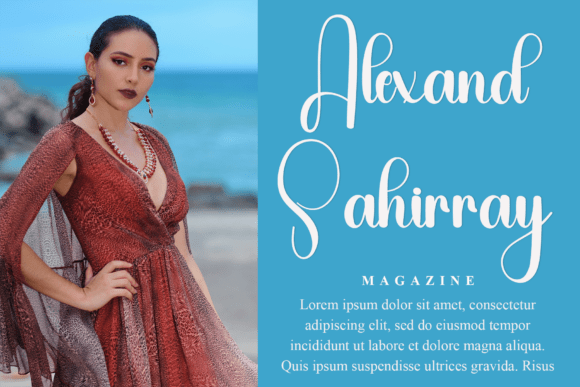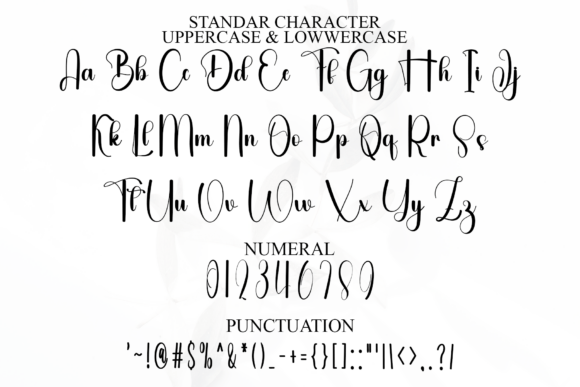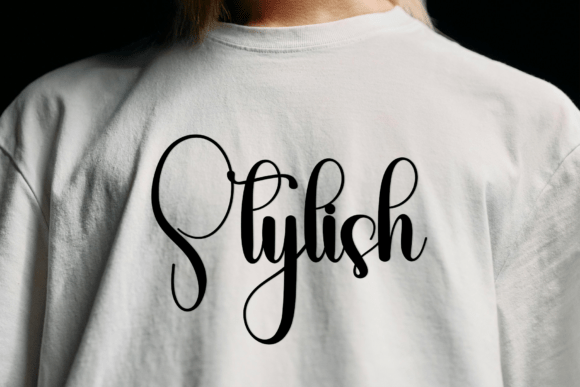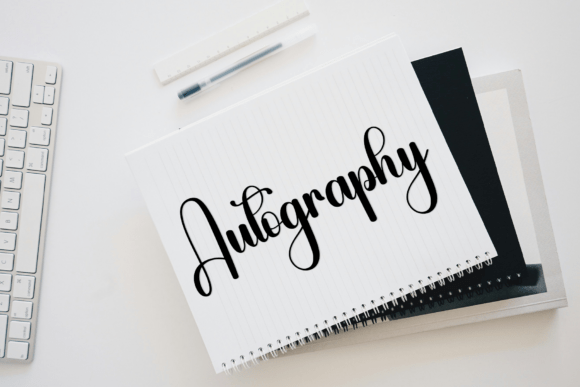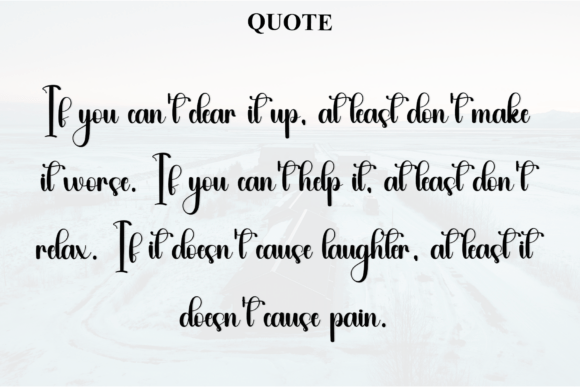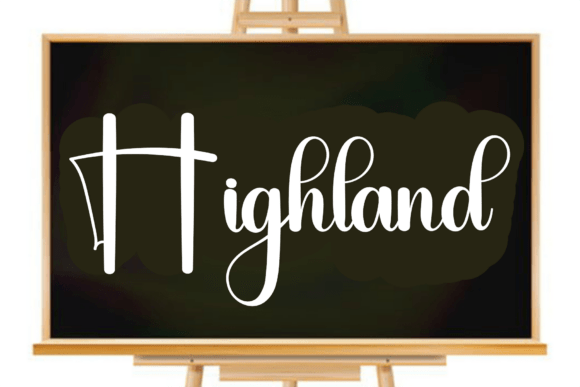
Introduction to Simple Paradise Font
As a designer, have you ever found yourself scrolling through a beautiful beach-themed website, captivated by the laid-back atmosphere and the effortless way the text flows across the screen? That’s exactly what happens when you use the Simple Paradise Font, a modern handmade typeface that embodies the essence of a coastal getaway.
With its tall, slender letterforms and organic, fluid curves, this font is more than just a design choice – it’s an experience. It’s a chance to transport your audience to a place of relaxation and tranquility, where the worries of everyday life melt away with the tide. Whether you’re working on a creative project or simply looking for a high-quality design resource, the Simple Paradise Font is an excellent choice.
Key Features of Simple Paradise Font
- High-quality design resource ideal for creative projects and personal use.
- Simple yet elegant font style suitable for various applications, including headings, titles, and body text.
- Features a transparent background, making it easy to use on any background image or color.
- Includes a range of font sizes, from 12pt to 72pt, to suit various design requirements.
- Designed with a resolution of 300 DPI for crisp and clear text display.
- Perfect for designers, writers, and artists seeking a simple yet effective font for their creative project.
Honest Review: Simple Paradise Font
I recently had the chance to work with the Simple Paradise Font for a creative project, and I must say, it’s been a great addition to my design resource library. The font is free to download, which is a huge plus, especially for those on a tight budget.
What works well with this font is its high quality and versatility. It’s perfect for any project that requires a touch of elegance and sophistication. The font is also available with a transparent background, making it easy to integrate with any design element.
The font’s simplicity is both its strength and weakness. Here are some pros and cons:
- ✨ Versatile and can be used in a variety of contexts
- ⚠️ Limited character set, which may not be suitable for projects that require a wide range of characters
- ⚠️ May not be suitable for projects that require a bold or playful font style
Overall, I’m impressed with the Simple Paradise Font. It’s a great design resource that can add a touch of elegance to any project. However, it’s essential to keep in mind its limitations and use it accordingly.
The Simple Paradise Font is a high-quality design resource ideal for various creative projects. This versatile font offers a unique aesthetic and is available for free download, making it a valuable addition to any design toolkit.
For optimal results, use the Simple Paradise Font on a transparent background to create a clean and modern look. Experiment with different font sizes and colors to find the perfect combination for your design project.
The Simple Paradise Font is ideal for a variety of design projects, including: